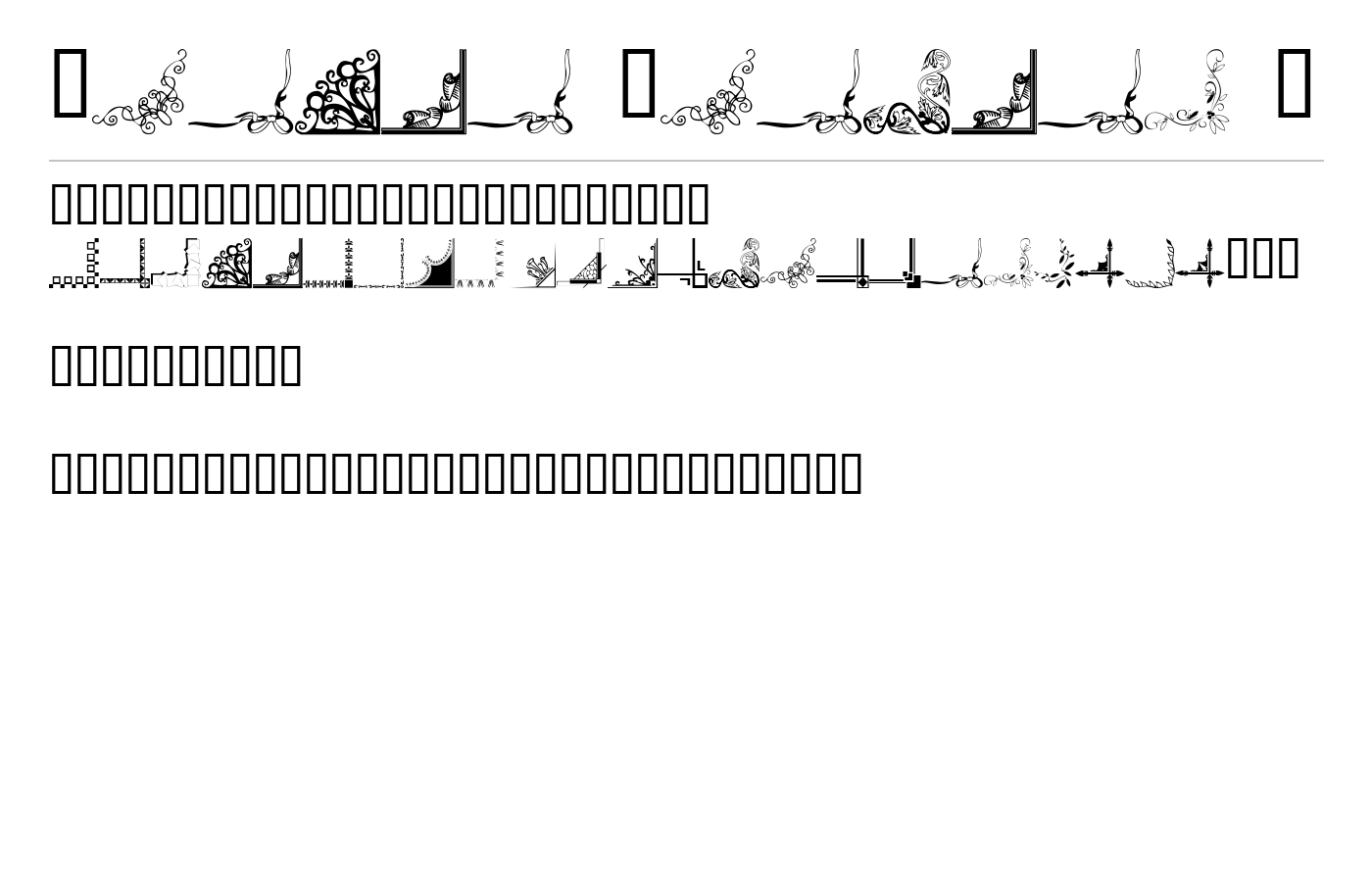
Border Corners 2 is an ornamental decorative font featuring intricate, delicate corner designs filled with swirling floral and vine motifs. Ideal for adding a vintage or elegant flair, it works best in decorative borders, invitations, and luxury branding where artistic embellishment is desired rather than standard text. This font’s detailed and artistic aesthetic brings a refined, classic personality to design projects.
Border Corners 2 Font
About Border Corners 2 Font